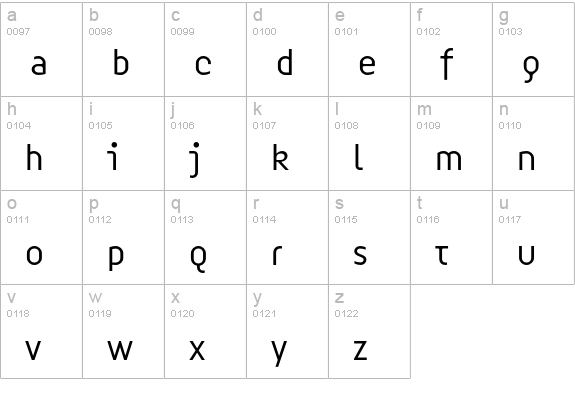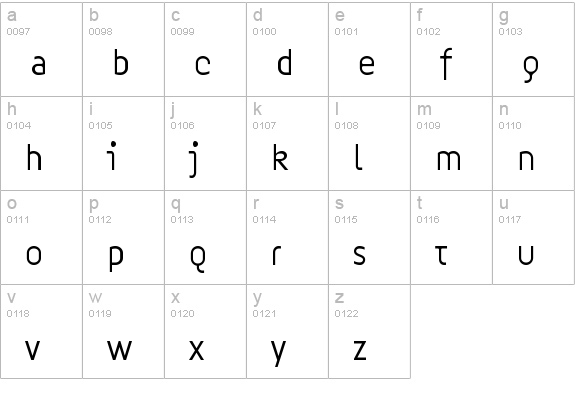
OgilveThin Font Details
OgilveThin font is a sleek and modern typeface that exudes sophistication and elegance. With its thin and delicate lines, this font is perfect for adding a touch of refinement to any design project. Whether you're creating invitations, branding materials, or social media graphics, OgilveThin font will elevate your work to the next level. The best part? OgilveThin font is available for free download at FontsMarket.com. This means you can easily access this beautiful font and use it in your projects without any cost. Don't miss out on the opportunity to enhance your designs with the timeless beauty of OgilveThin font. Download it today and let your creativity shine!